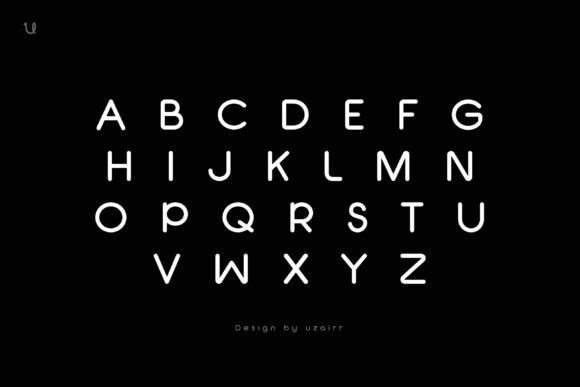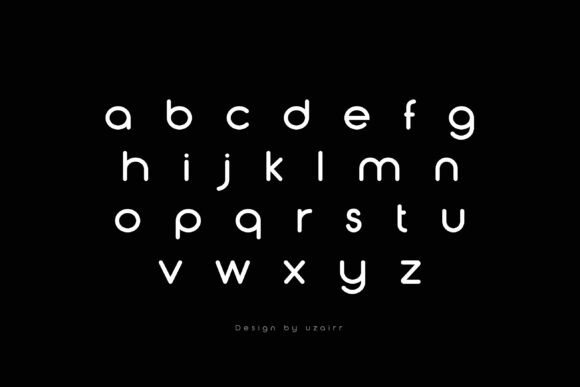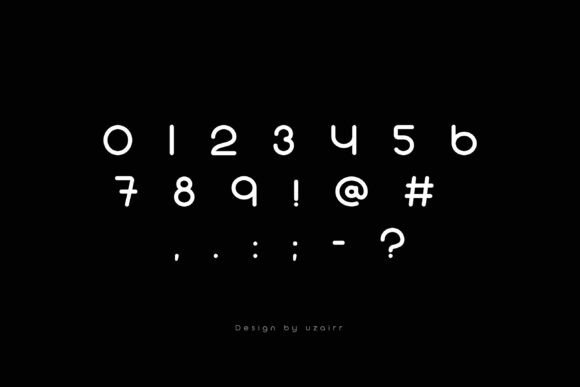
Introduction to Neotura Rounded Font
Neotura Rounded brings a softer, friendlier touch to the modern elegance of the original Neotura typeface.
With smooth, fully rounded edges, this version radiates warmth and approachability while maintaining a clean, contemporary look Perfect for branding, packaging, and digital projects, Neotura Rounded adds personality and charm without losing its professional appeal.
Key Features of Neotura Rounded Font
Why Choose Neotura Rounded Font?